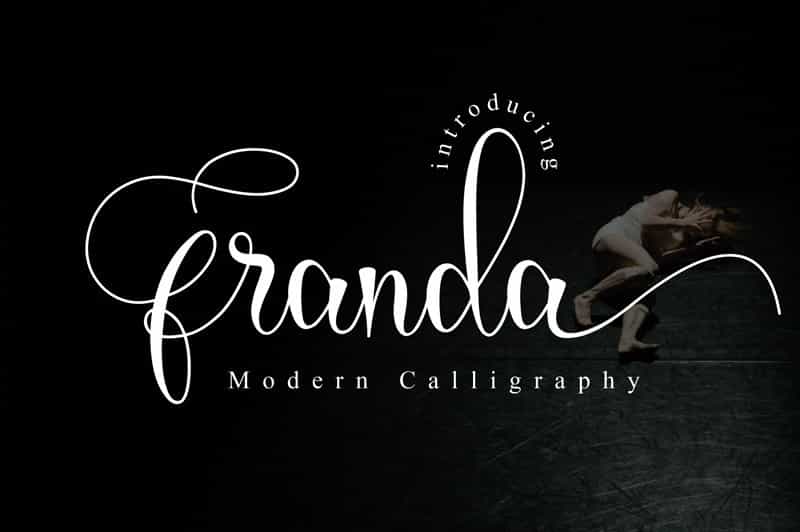
Discover Franda Calligraphy Font, part of the Calligraphy collection—a versatile and unique font perfect for adding a personal touch to your projects. Download it for free and enjoy crafting designs with style, from invitations to social media posts. This font is available exclusively for personal use, giving you the freedom to create without limits. Unlock your creativity with Franda Calligraphy Font today!